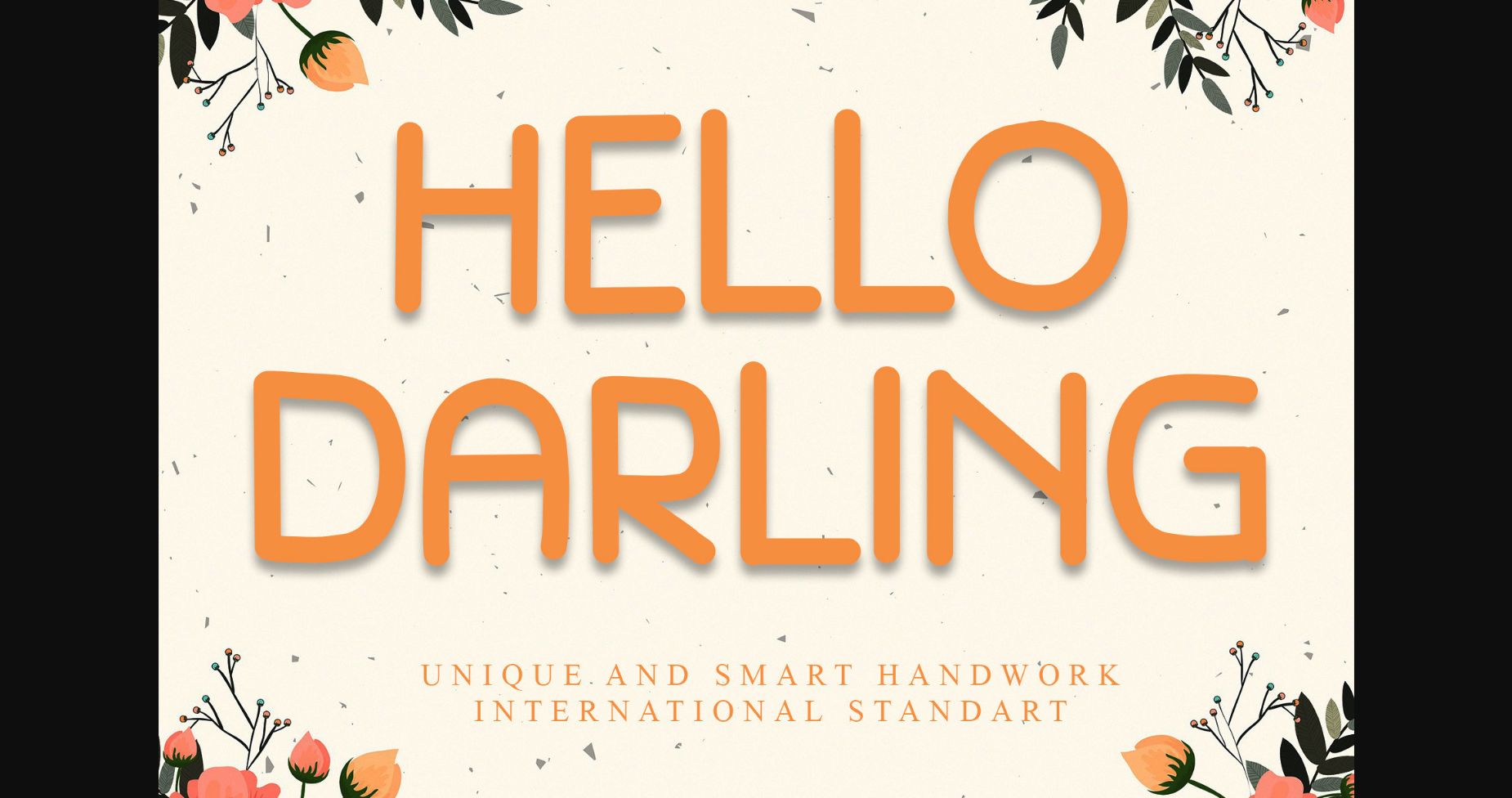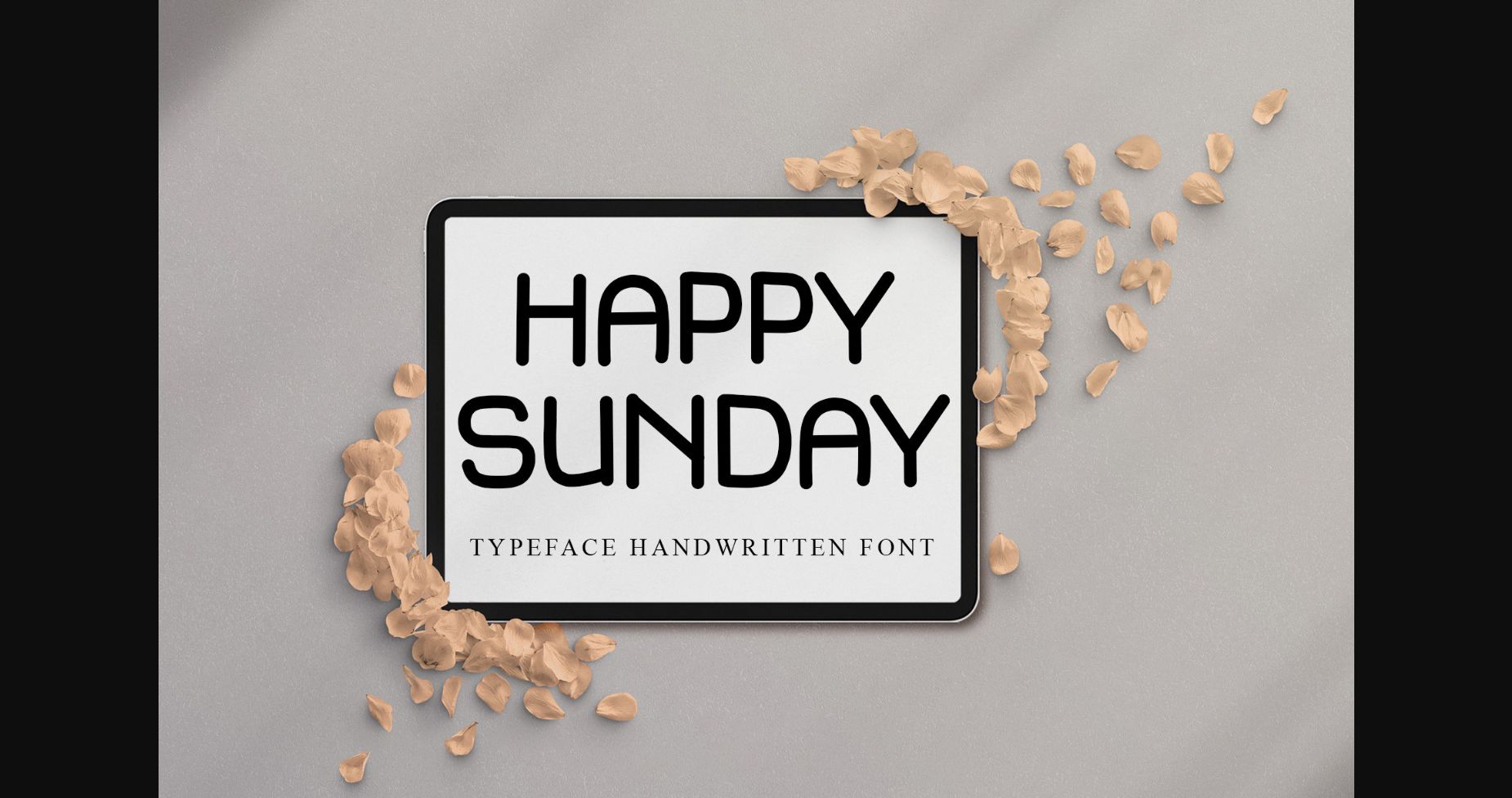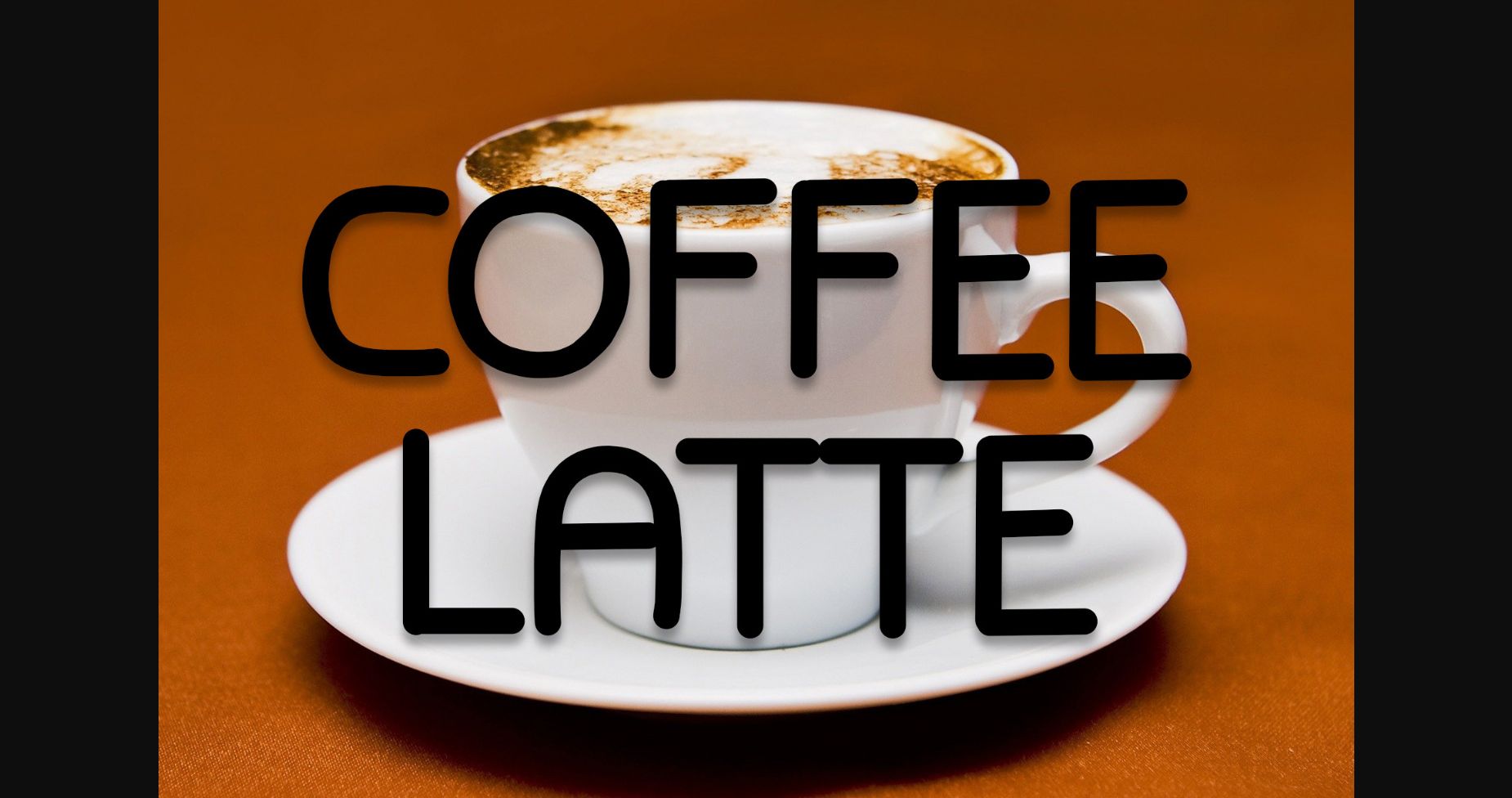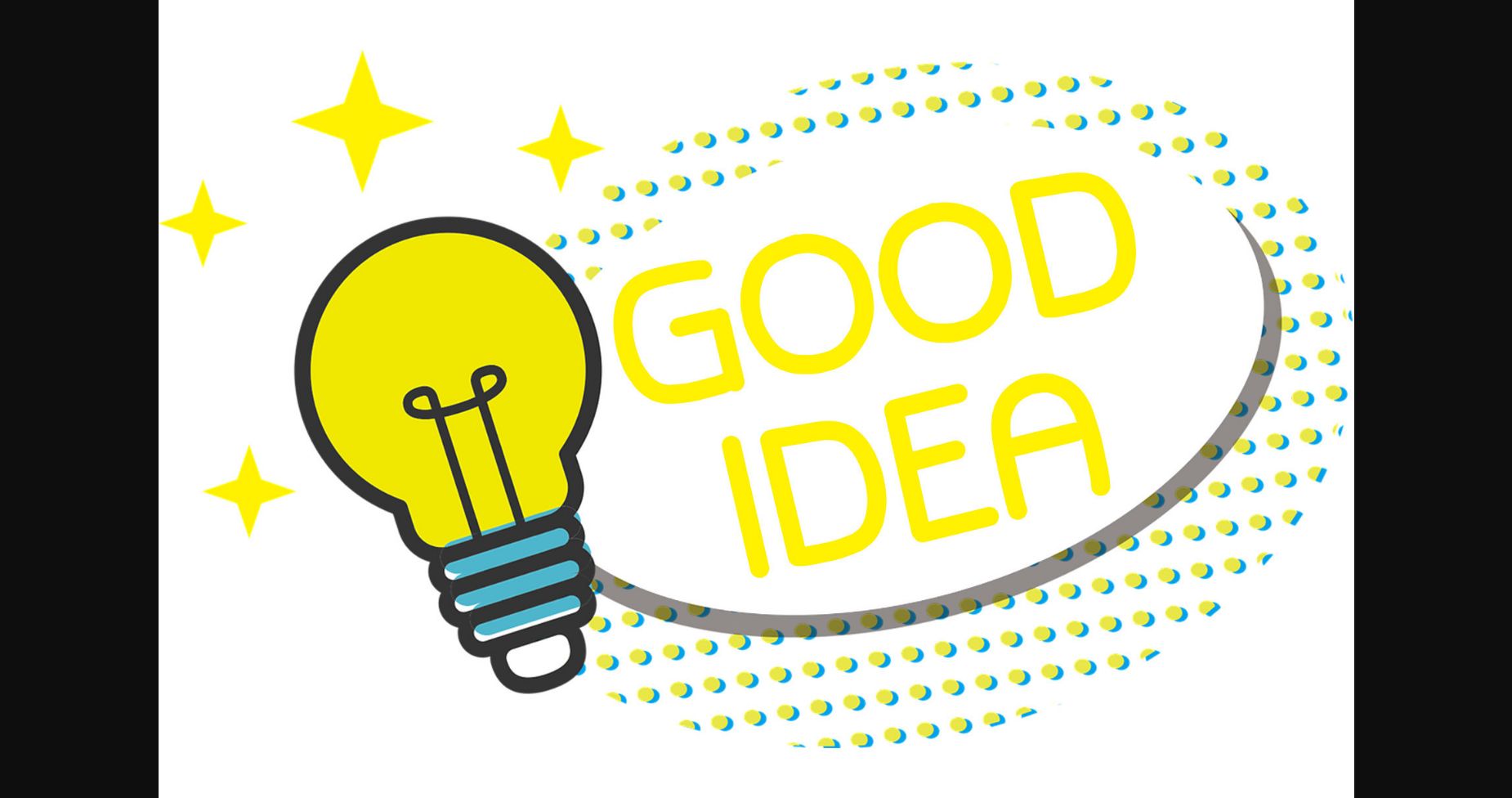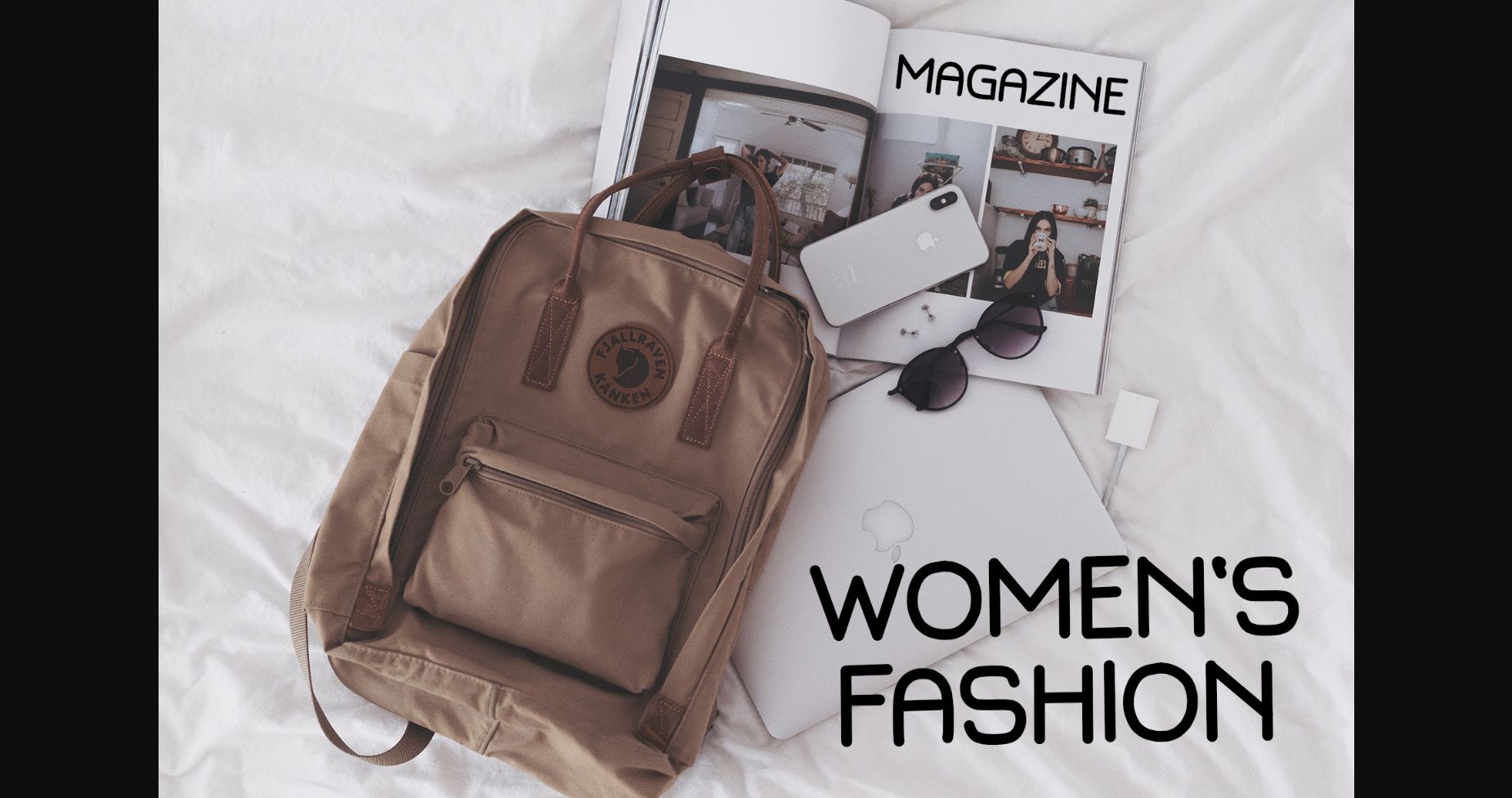
Hello Darling Font
About Hello Darling Font
Hello, Darling is a unique and elegant sans serif font. It will look great on wedding invitations, greeting cards, billboards, logos, business cards, and any other design that requires an original touch.